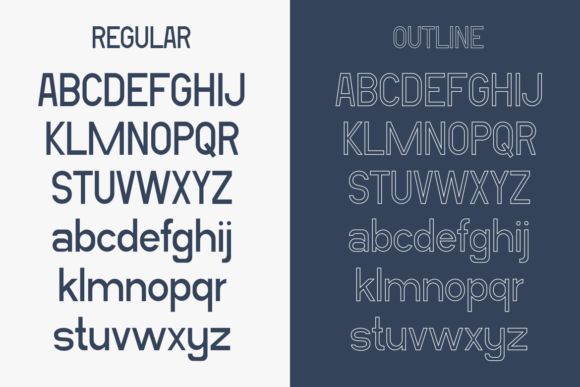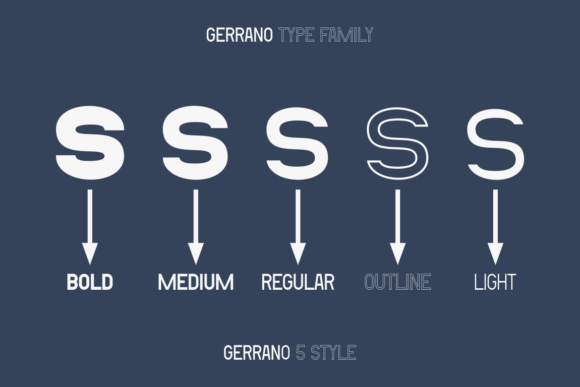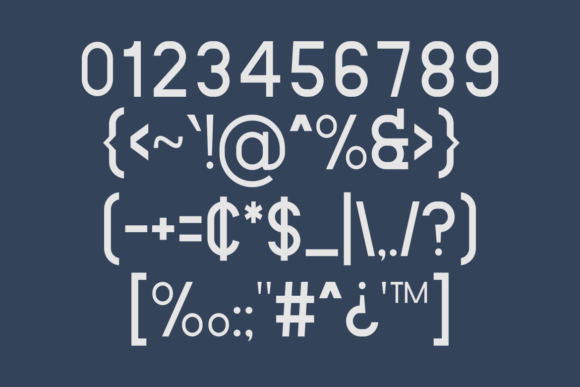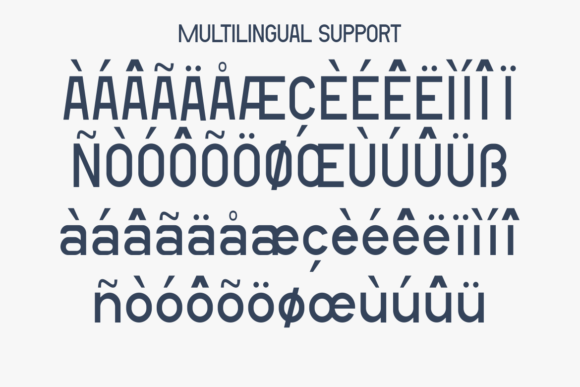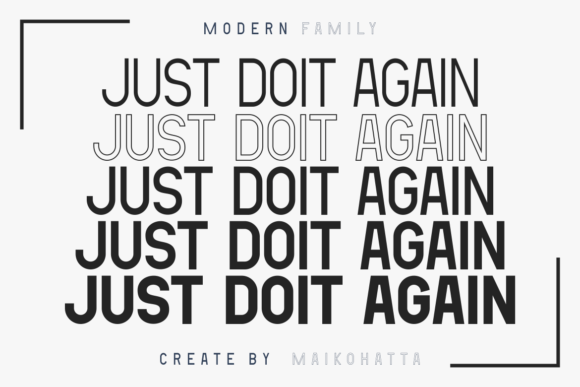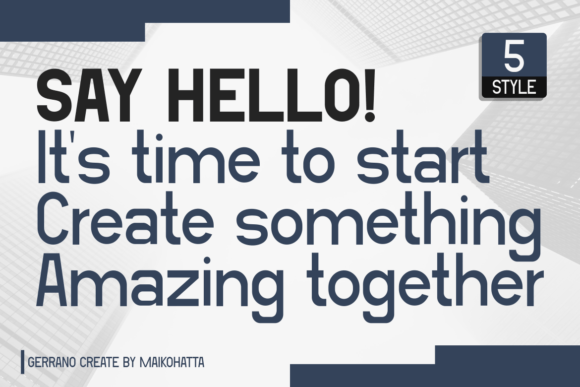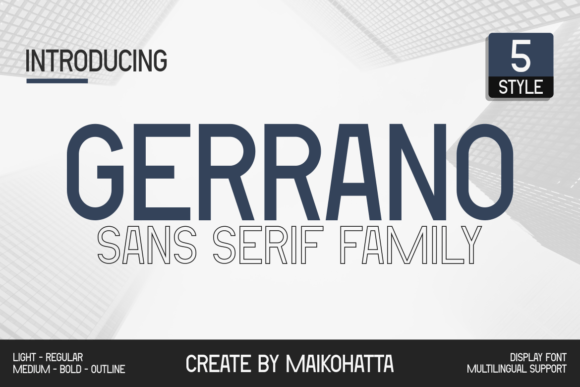
Introducing Gerrano: The Ultimate Sans Serif Font Family for Modern Design
In the world of graphic design, typography plays a crucial role in conveying messages, evoking emotions, and creating visual identities. A well-crafted font can elevate a design project from ordinary to extraordinary. We’re excited to introduce Gerrano, a versatile sans-serif font family designed to meet the demands of modern design. With its various styles and clean aesthetic, Gerrano is the perfect choice for designers and crafters looking to create stunning text displays.
What is Gerrano?
Gerrano is a sans-serif font family that boasts a highly versatile design, making it suitable for a wide range of graphic design applications. Its clean and modern aesthetic ensures that your text displays look fresh and sophisticated, while its various styles provide the flexibility to customize the appearance of your text to suit your project’s needs.
Key Features of Gerrano
- Versatile Design: Gerrano’s sans-serif design makes it an excellent choice for various design projects, from digital media to print materials.
- Multiple Styles: With a range of styles to choose from, you can mix and match to create unique text displays that capture your brand’s personality.
- Clean and Modern Aesthetic: Gerrano’s sleek design ensures that your text displays look contemporary and visually appealing.
- Easy to Read: The font’s clear and legible design makes it perfect for use in various contexts, from body text to headings.
Benefits of Using Gerrano
So, why choose Gerrano for your design projects? Here are just a few benefits of using this versatile font family:
- Consistency: Gerrano’s consistent design across various styles ensures that your brand’s visual identity remains cohesive.
- Flexibility: With Gerrano, you can create a range of text displays, from simple and elegant to bold and attention-grabbing.
- Time-Saving: Gerrano’s versatility means you can use it across multiple projects, saving you time and effort in the long run.
- Unique Designs: Gerrano’s range of styles allows you to create unique and eye-catching text displays that set your brand apart.
How to Use Gerrano
Using Gerrano is easy! Here are a few tips to get you started:
- Pair with Other Fonts: Experiment with pairing Gerrano with other fonts to create visually appealing combinations.
- Mix and Match Styles: Try combining different Gerrano styles to add depth and interest to your text displays.
- Experiment with Colors: Gerrano’s clean design looks great in a range of colors, so don’t be afraid to experiment and find the perfect hue for your brand.
In conclusion, Gerrano is a game-changing sans-serif font family that offers the versatility and flexibility designers and crafters need to create stunning text displays. With its clean and modern aesthetic, multiple styles, and ease of use, Gerrano is the perfect choice for a wide range of graphic design applications. Whether you’re working on a digital project or a print material, Gerrano is sure to elevate your design to the next level.